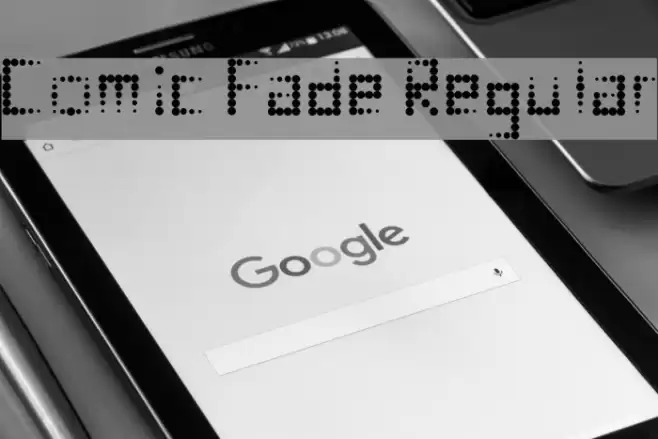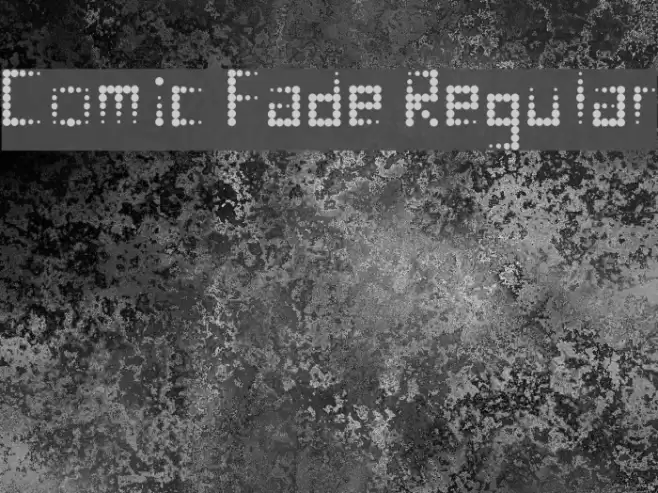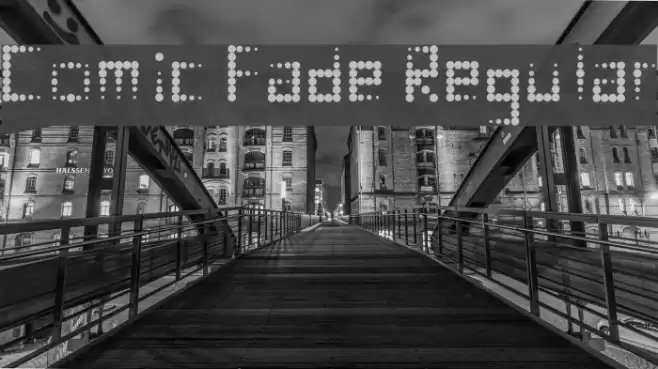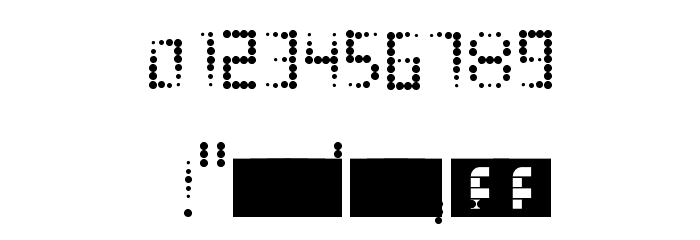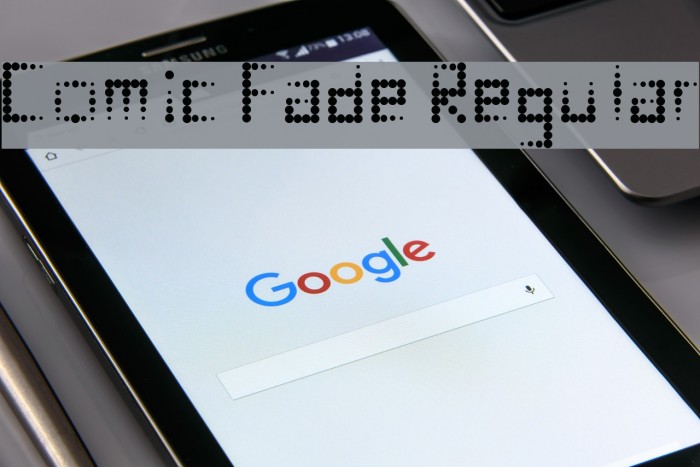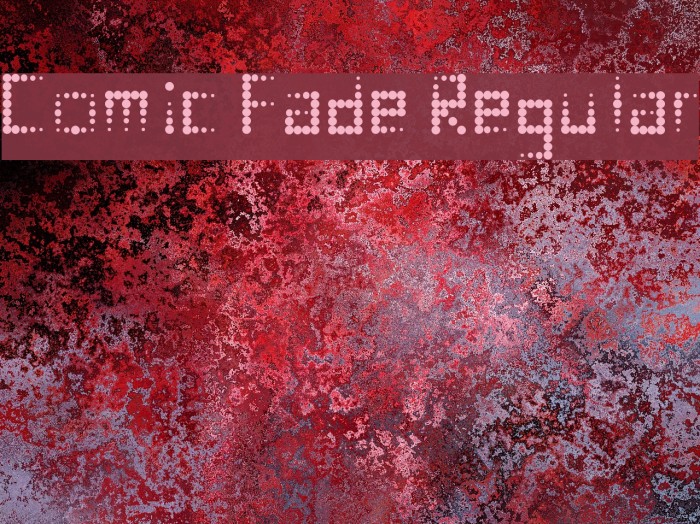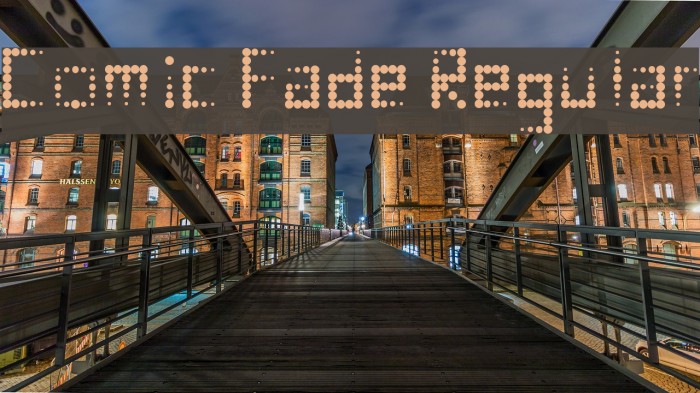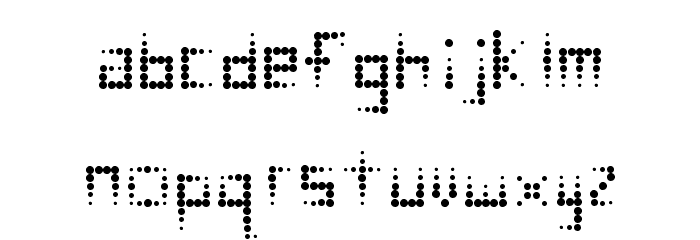
Comic Fade Regular Font
Comic Fade Regular Description
This font features a playful and unique design composed entirely of dots that form each character. The letters and numbers are constructed with a consistent dot pattern, creating a visually engaging and modern look. The style is reminiscent of digital displays or pixel art, making it ideal for creative and contemporary projects. The font maintains a uniform structure across uppercase, lowercase, and numeric characters, ensuring readability while adding a distinct artistic flair. The special characters follow the same dotted pattern, integrating seamlessly with the rest of the typeface.
A playful, dot-based font ideal for modern and creative designs from Futuristic fonts.
- Proposed Projects: Suitable for digital art projects, modern advertisements, playful branding, and creative posters.
- Use Case: Logos, Posters, Creative Displays